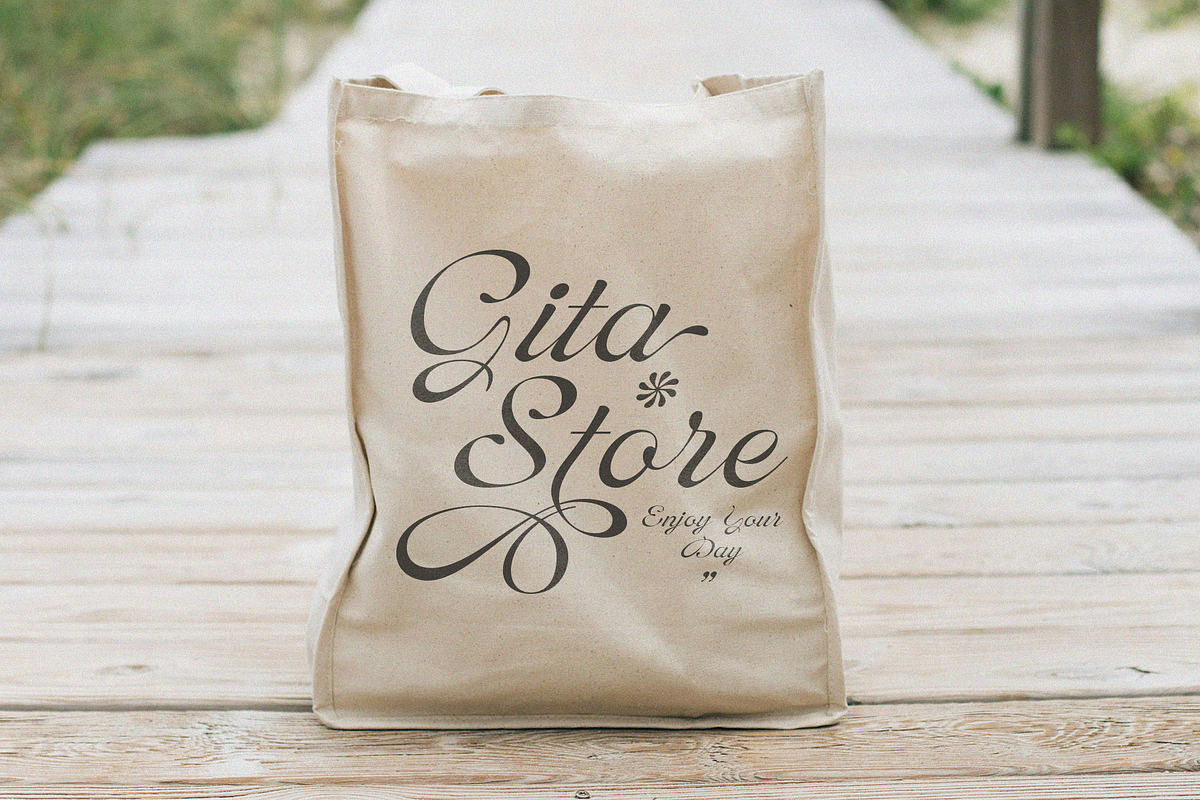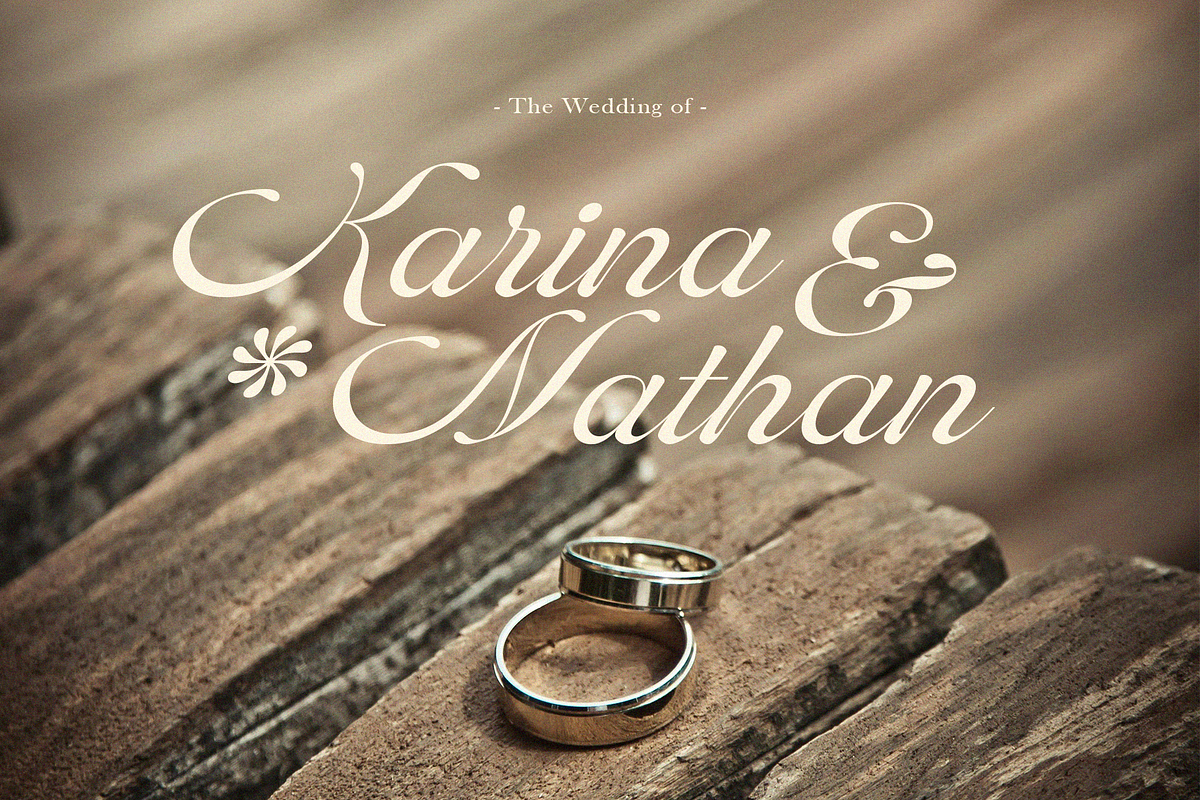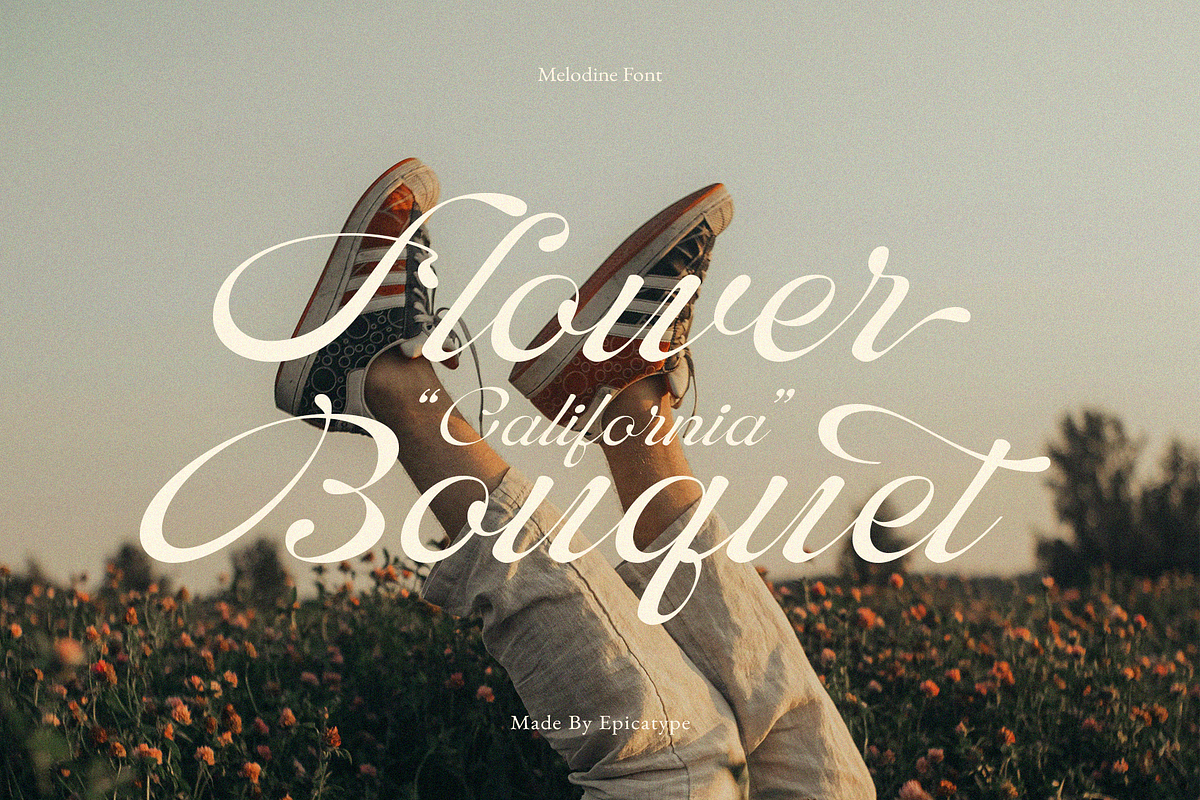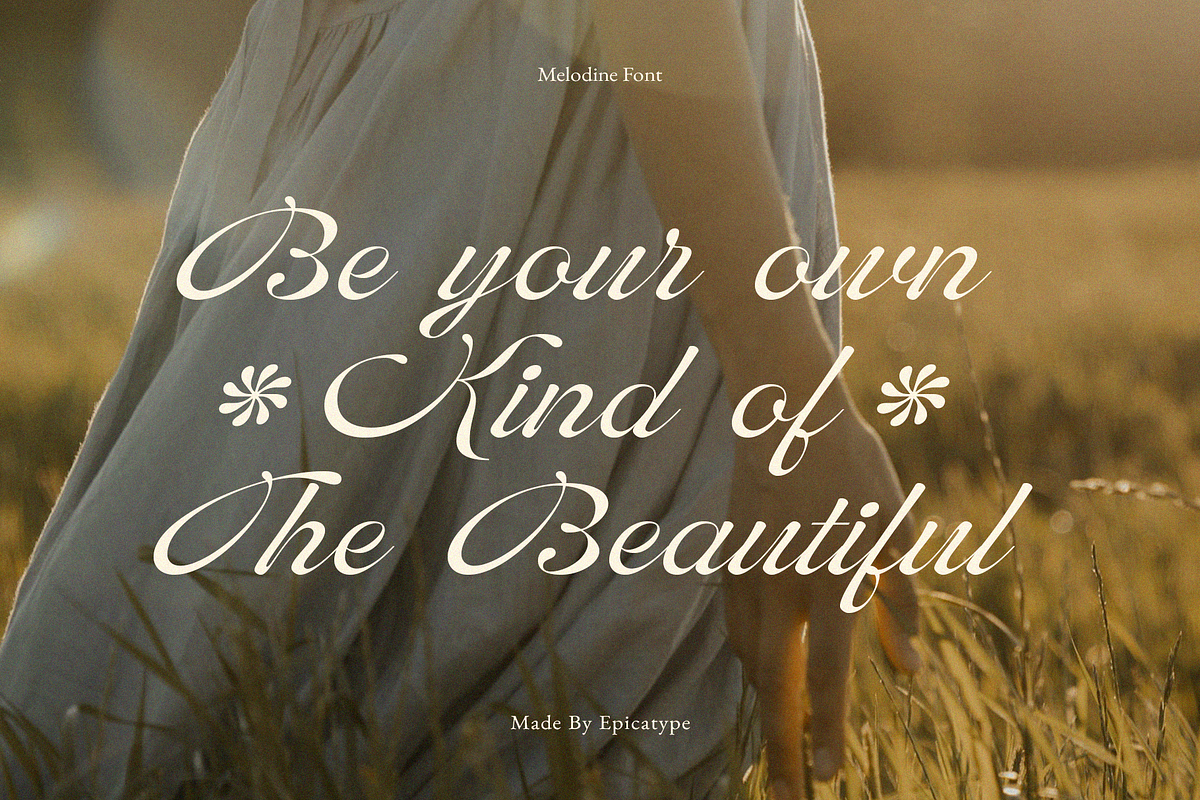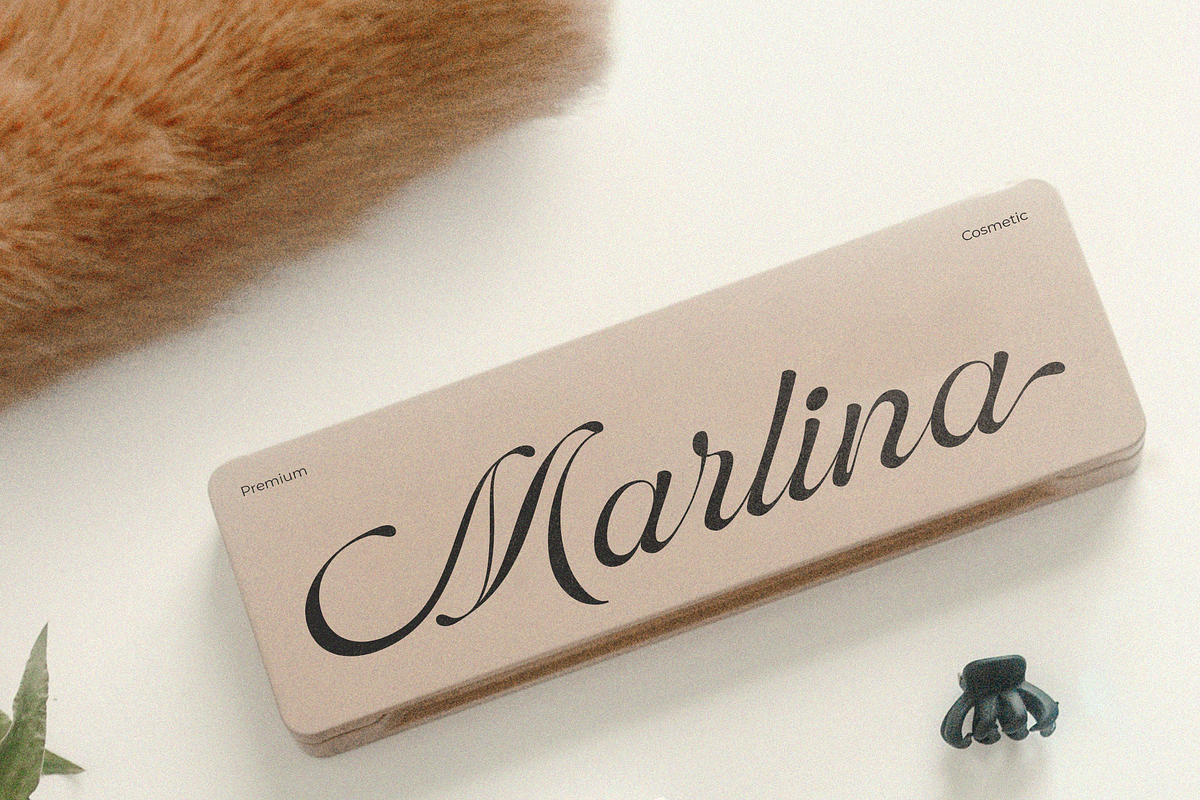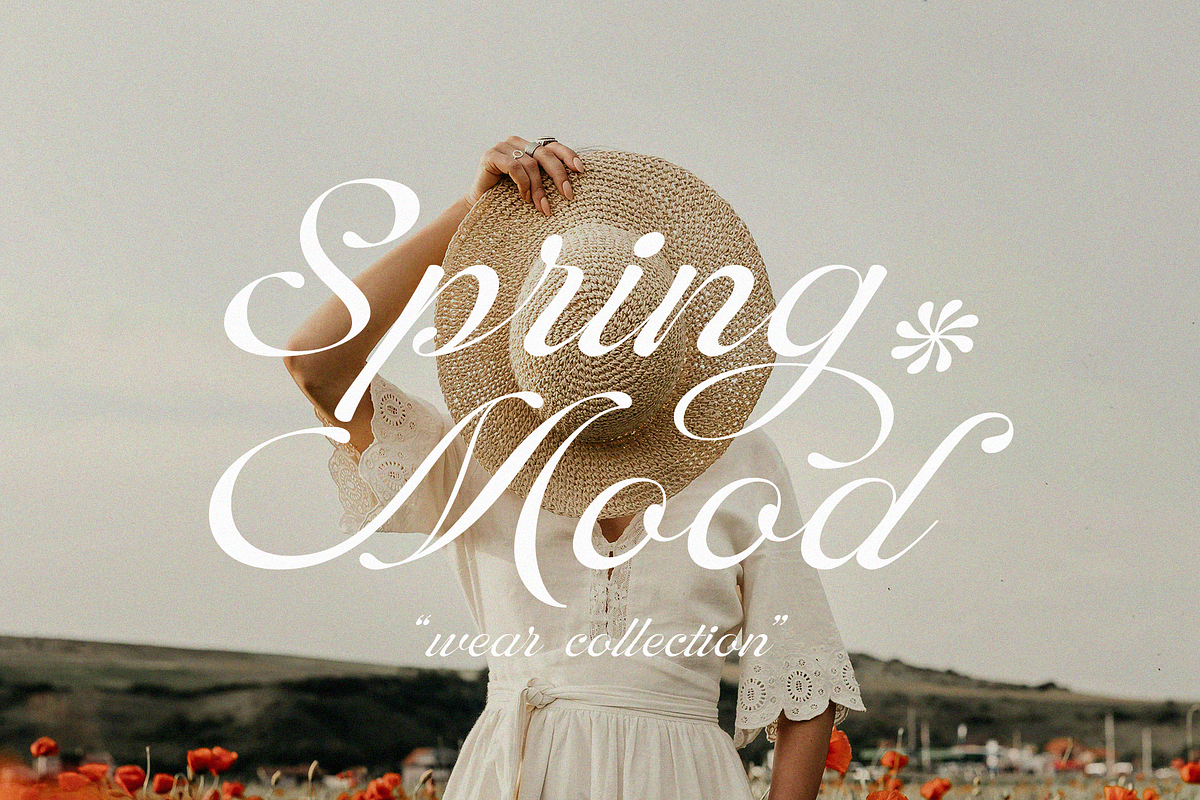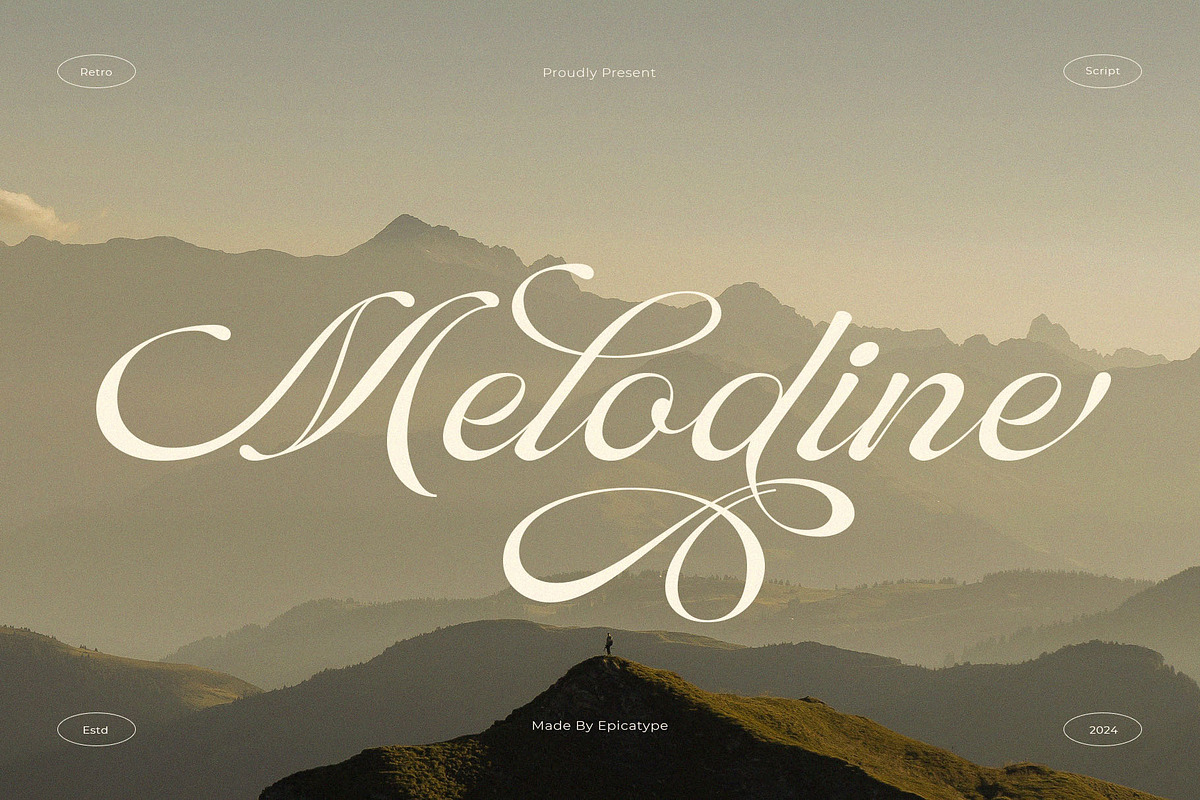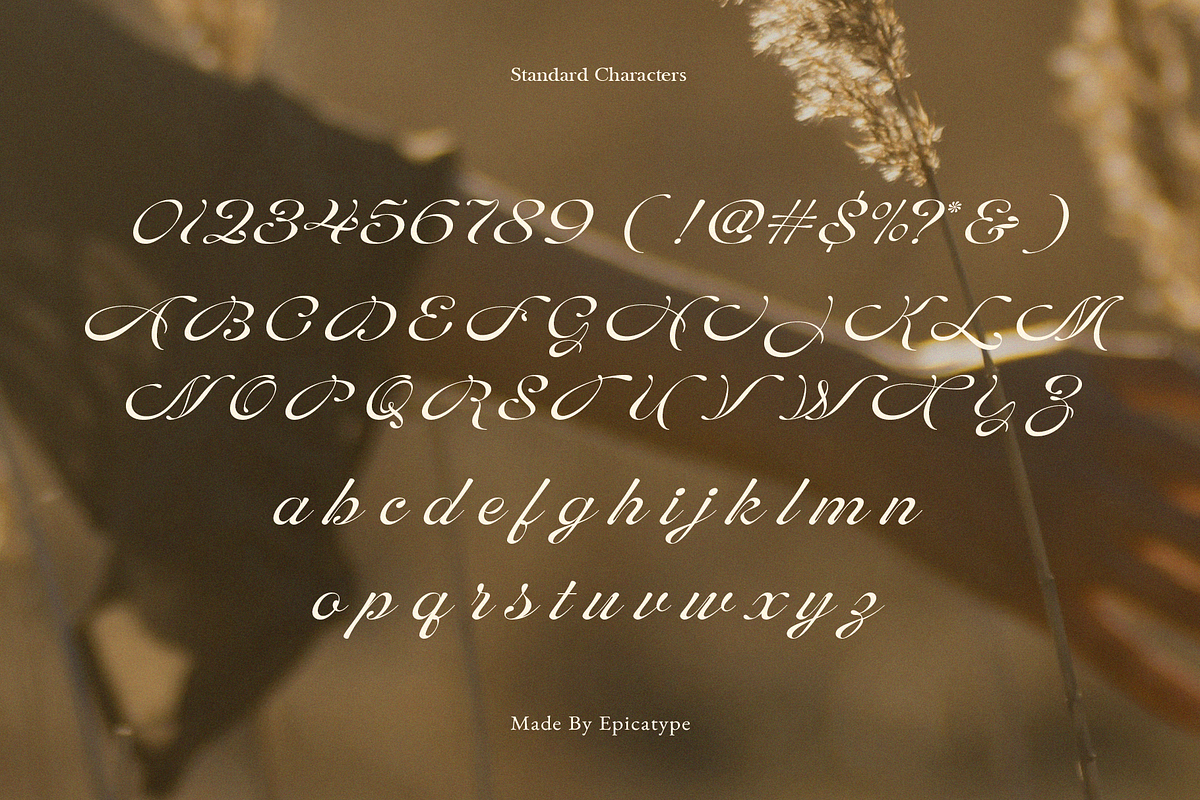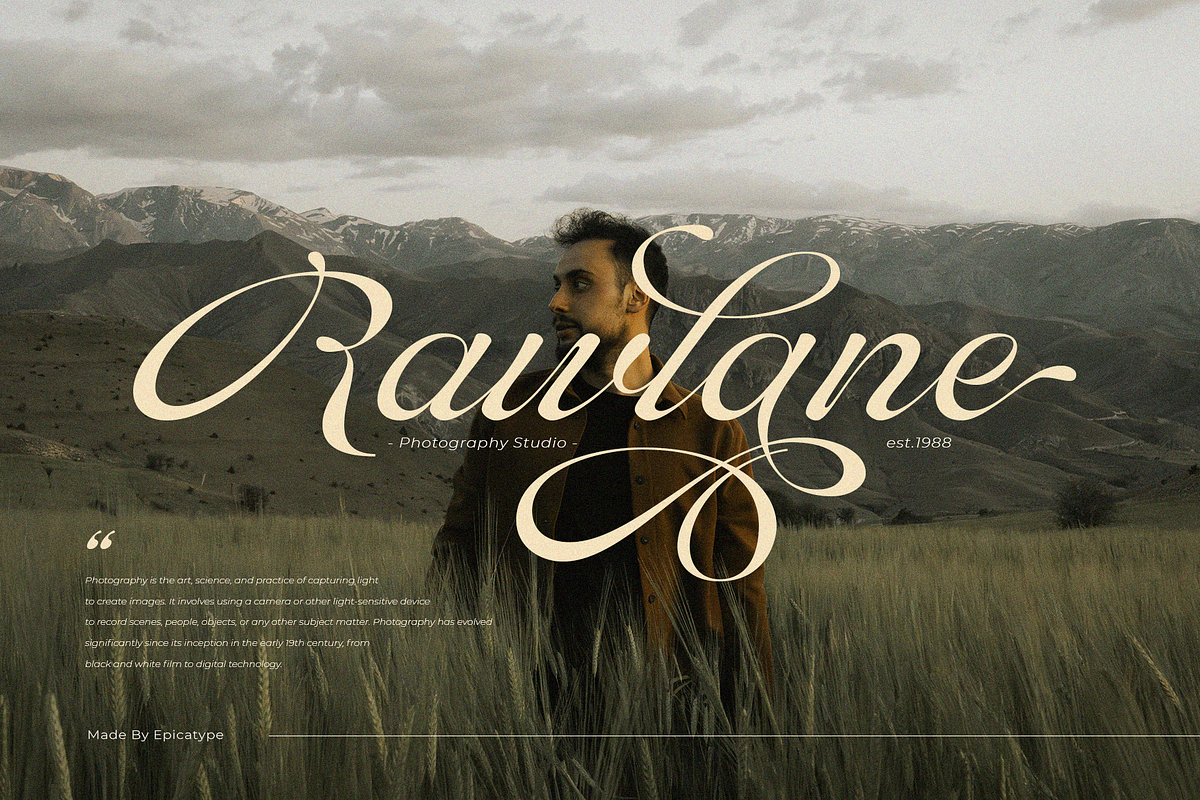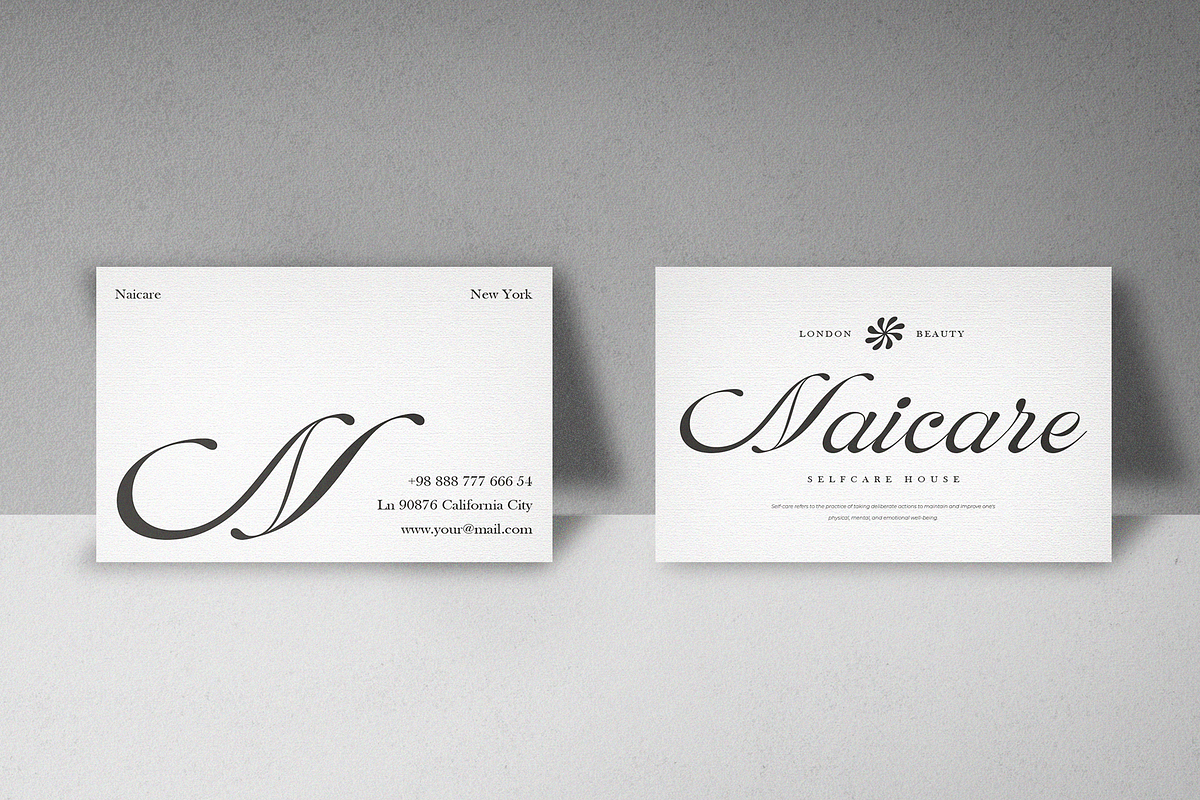
Melodine || Classy Script
Hello, new Stylish and Classy Script called Melodine!!! Melodine is a stylish and classy script font works great for logos, magazine, social media. It come with a unique lower and uppercase plus numbers, punctuation & multilingual letters, alternates and ligatures.